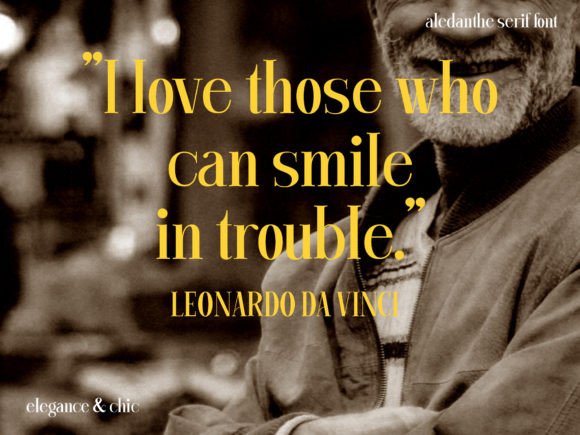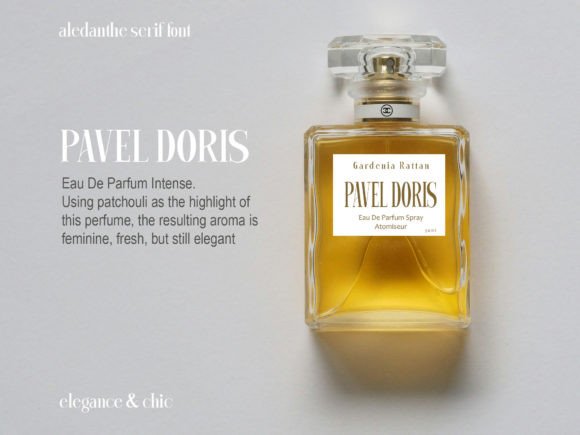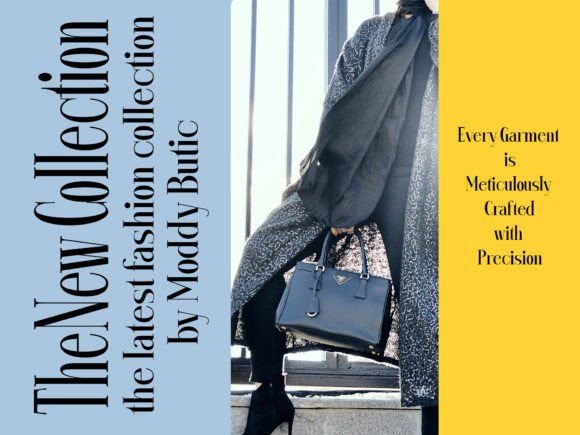
Discover Aledanthe Font: Where Vintage Charm Meets Modern Sophistication
In the world of typography, fonts are more than just a means to convey text; they are an expression of style, tone, and personality. For designers and crafters looking to elevate their projects with a unique blend of classic elegance and retro flair, Aledanthe Font is an exciting discovery. This stylish serif font combines the timeless sophistication of traditional typography with a vibrant, retro twist, making it a versatile tool for a wide range of design aesthetics.
The Essence of Aledanthe Font
Aledanthe Font is not just a typeface; it’s an experience. It brings to the table a perfect marriage of vintage charm and modern sophistication, offering designers the flexibility to craft visual stories that are both distinct and memorable. Whether you’re working on an urbane, polished project or a daring, edgy retro concept, Aledanthe provides the perfect blend of elegance and playfulness.
Key Features of Aledanthe Font
- Serif Elegance: Aledanthe boasts classic serif characteristics, providing a sense of tradition and reliability, while also offering a refined look that elevates any text.
- Retro Twist: What sets Aledanthe apart is its vivacious retro elements. The font incorporates subtle design cues from past decades, giving it a unique personality that is both nostalgic and fresh.
- Versatility: Aledanthe is incredibly versatile. Its design allows it to be used in a variety of contexts, from high-end branding and editorials to posters, packaging, and digital media.
- Legibility: Despite its stylized features, Aledanthe maintains high legibility, making it suitable for both headlines and body text.
Applications of Aledanthe Font
The applications of Aledanthe Font are vast and varied. Here are a few ideas to get you started:
- Branding and Logotypes: Use Aledanthe to create a memorable brand identity that stands out with its unique blend of sophistication and charm.
- Print and Digital Media: Whether it’s for a magazine, blog, or website, Aledanthe can help set the tone for your content, adding a touch of elegance and personality.
- Advertising and Marketing: Create eye-catching advertisements and marketing materials with Aledanthe, making your message more engaging and memorable.
- Packaging: Add a touch of class and whimsy to your product packaging, making it more appealing to potential customers.
Tips for Using Aledanthe Font Effectively
To make the most of Aledanthe Font, consider the following tips:
- Experiment with Sizes: Aledanthe’s design is optimized for both large and small sizes. Experiment with different sizes to see how it can transform your design.
- Play with Colors: While Aledanthe works well in black and white, it’s also highly effective in color. Try pairing it with bold hues for a modern look or softer tones for a vintage vibe.
- Combine with Other Fonts: For added depth and interest, consider pairing Aledanthe with complementary fonts. Its classic serif structure pairs well with sans serifs and script fonts.
Aledanthe Font is more than just a typeface; it’s a design statement. With its unique fusion of vintage charm and modern sophistication, it offers designers and crafters a powerful tool to transform their designs. Whether you’re aiming for a classic look or something more avant-garde, Aledanthe provides the perfect foundation for creating distinct and memorable visual stories. Discover the possibilities with Aledanthe Font and take your designs to new heights.